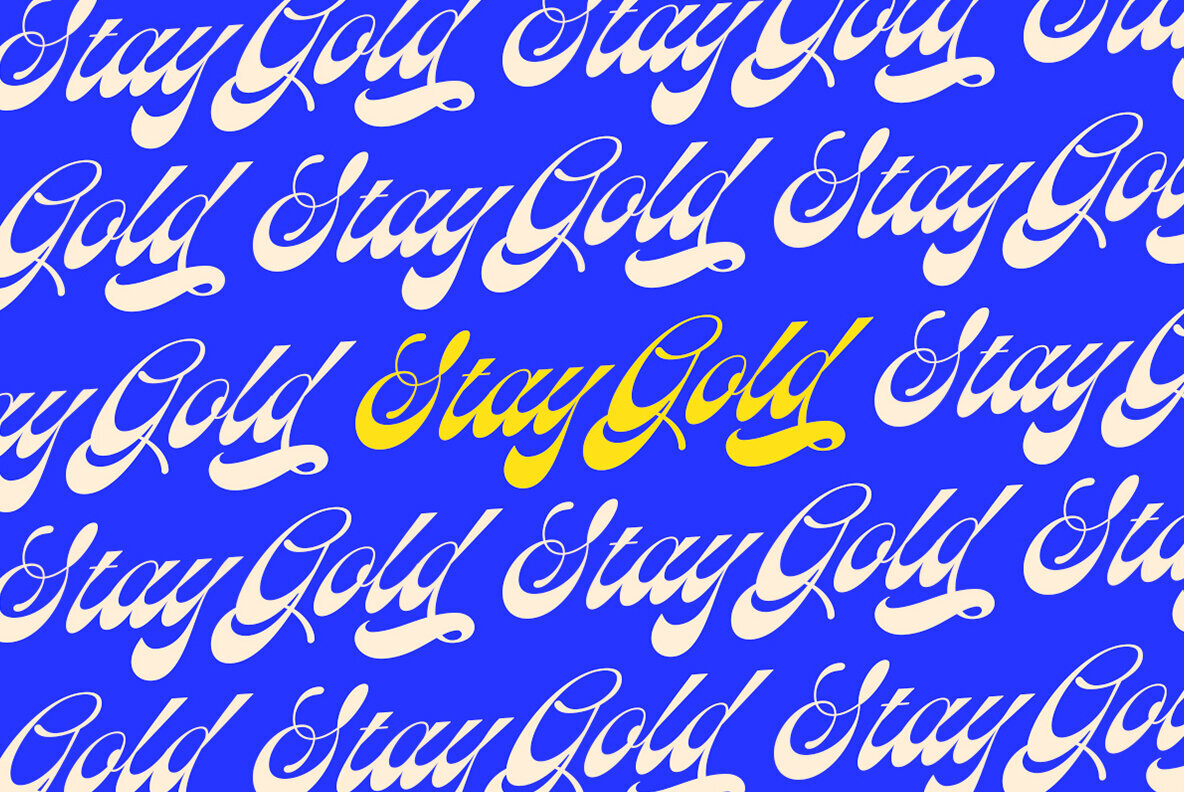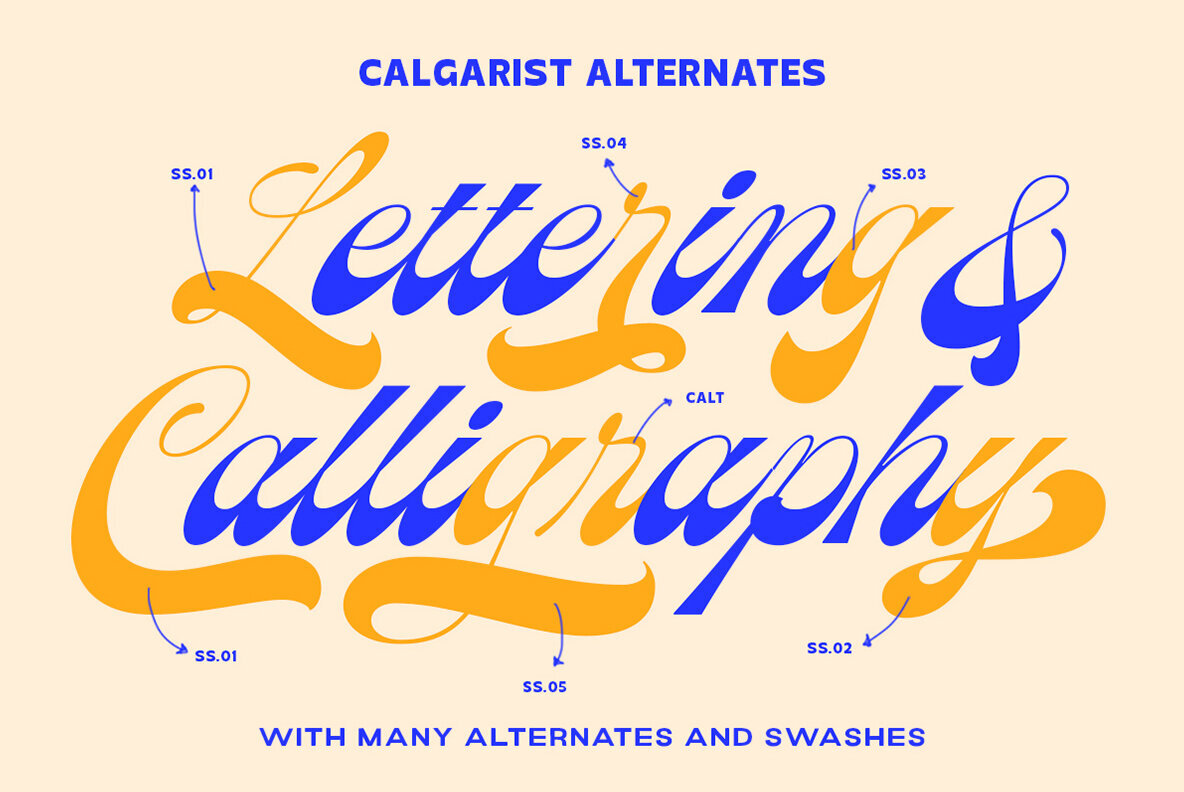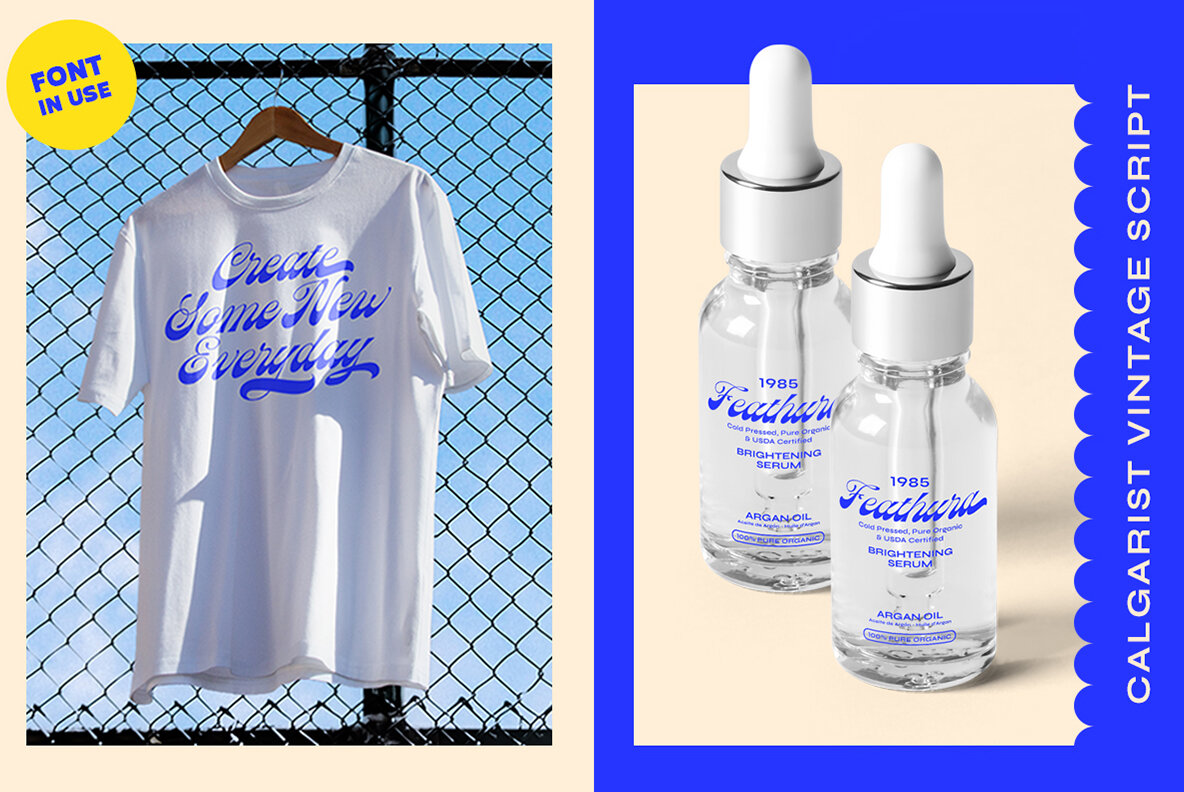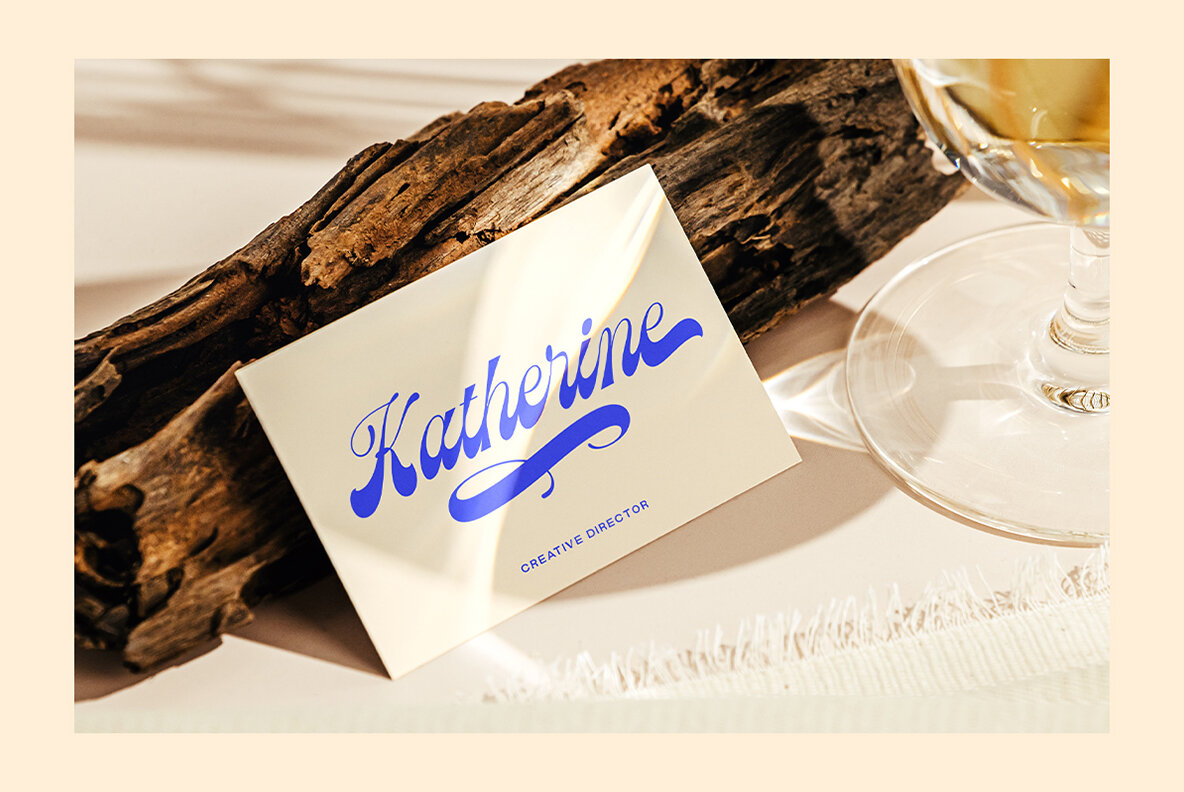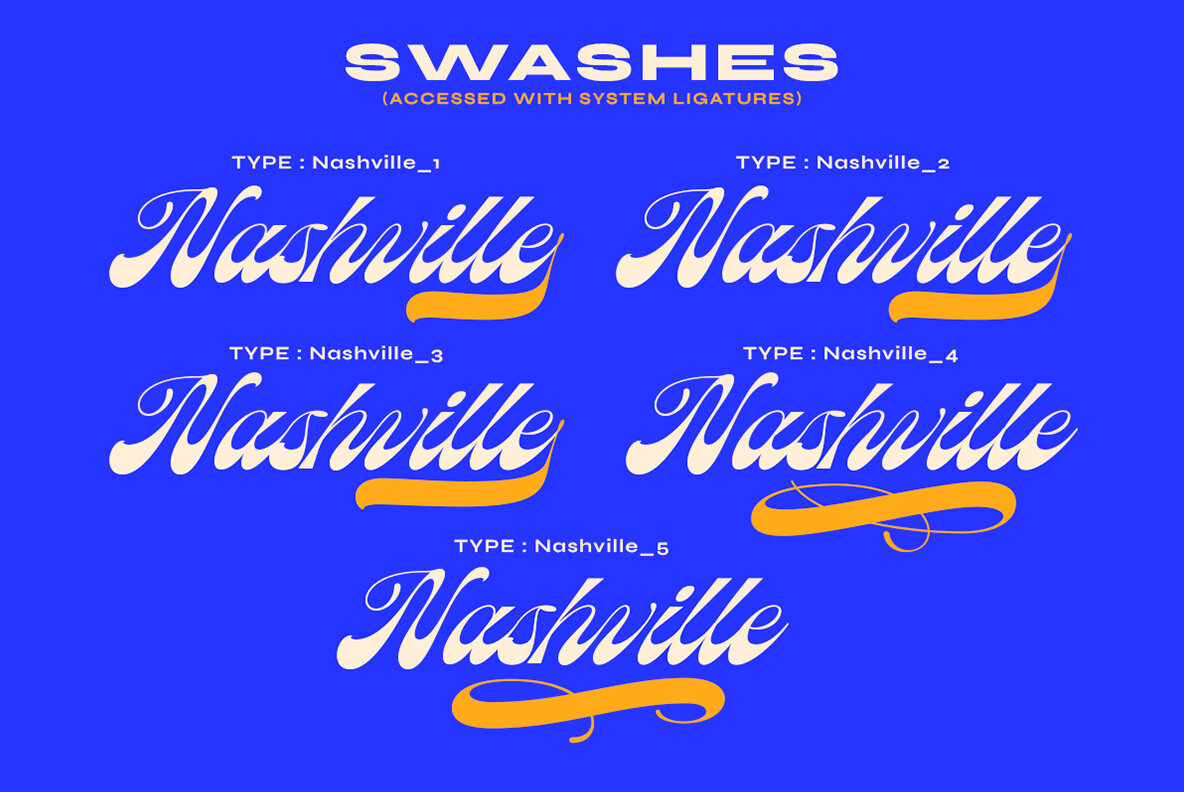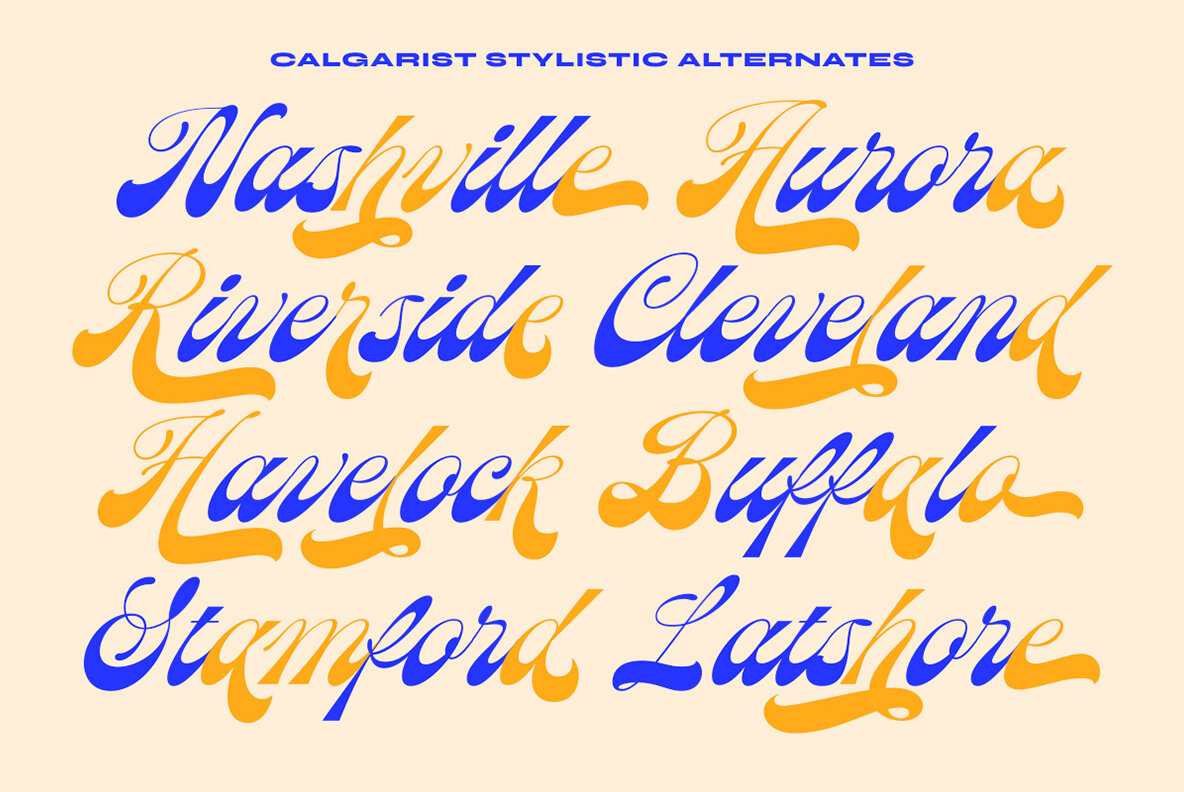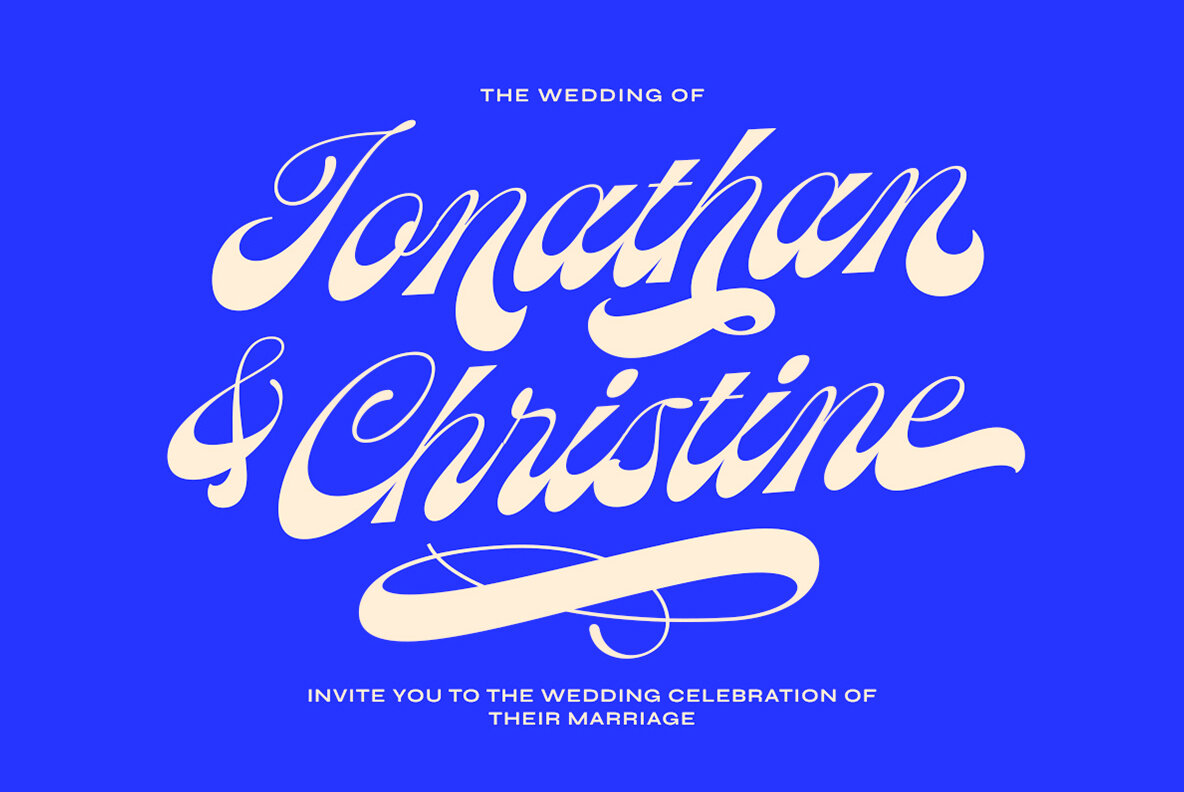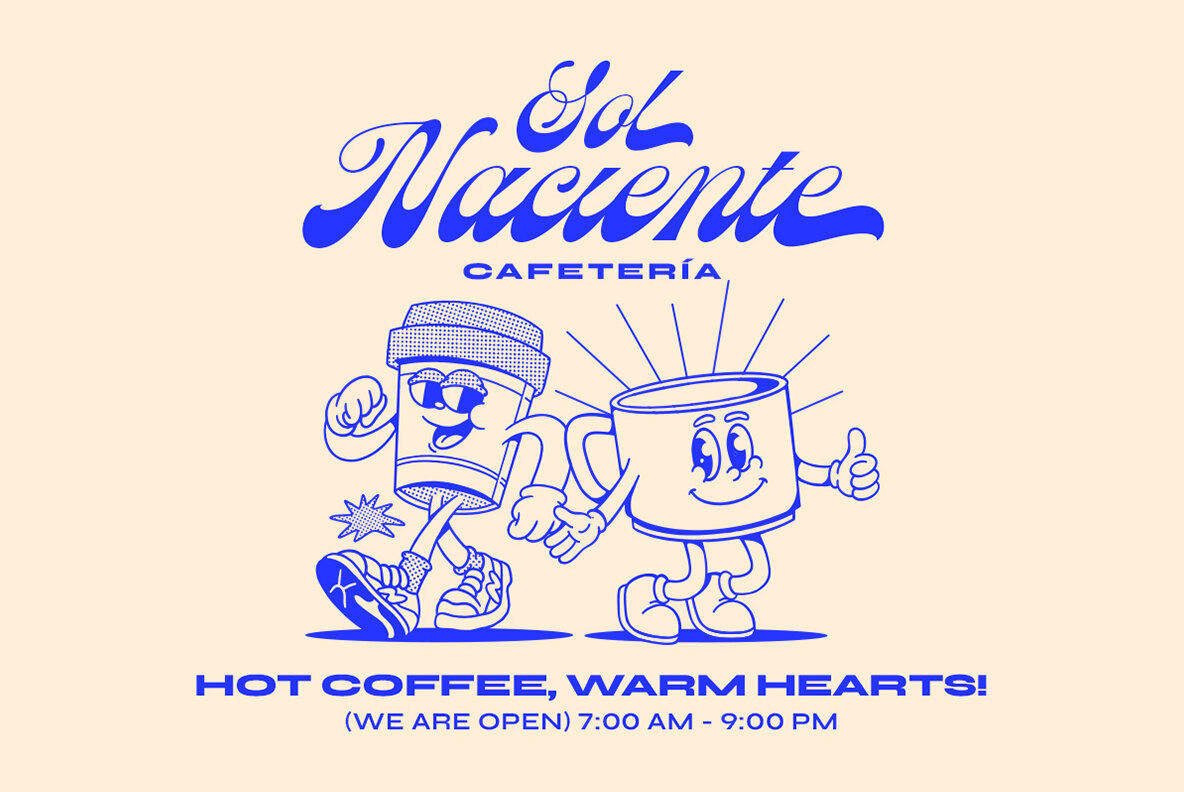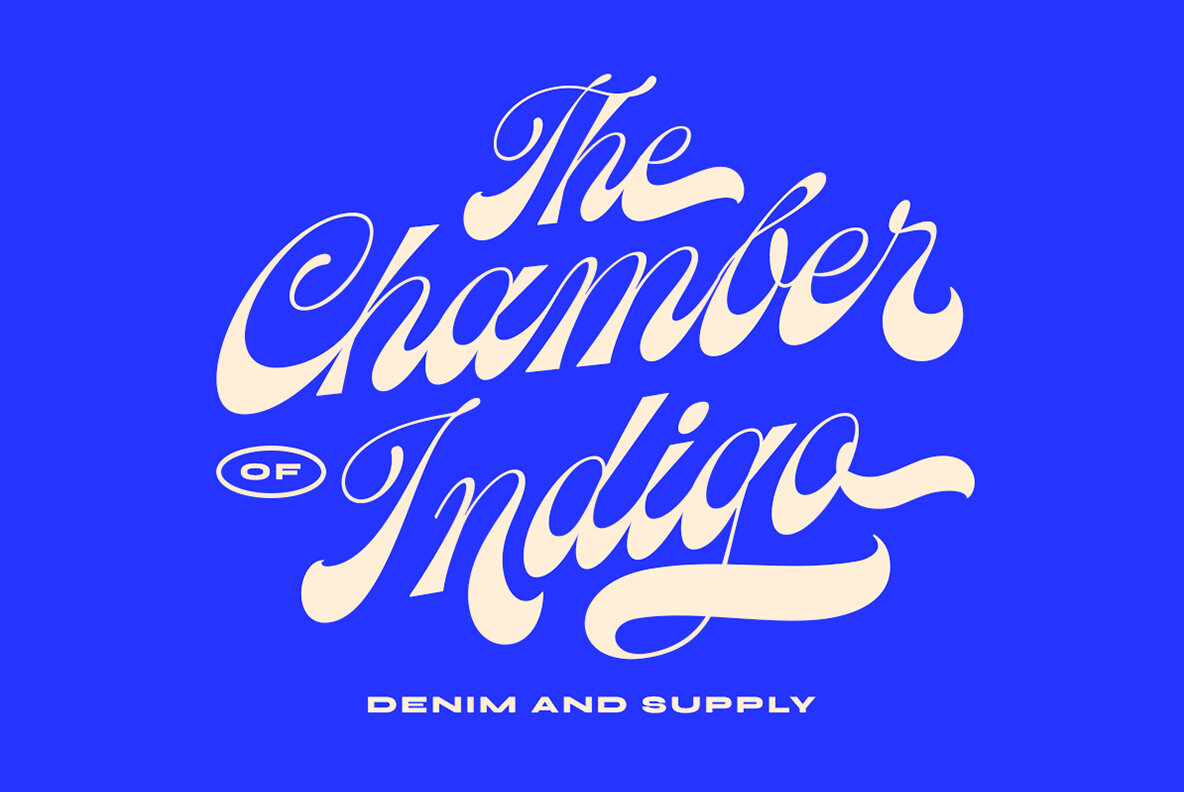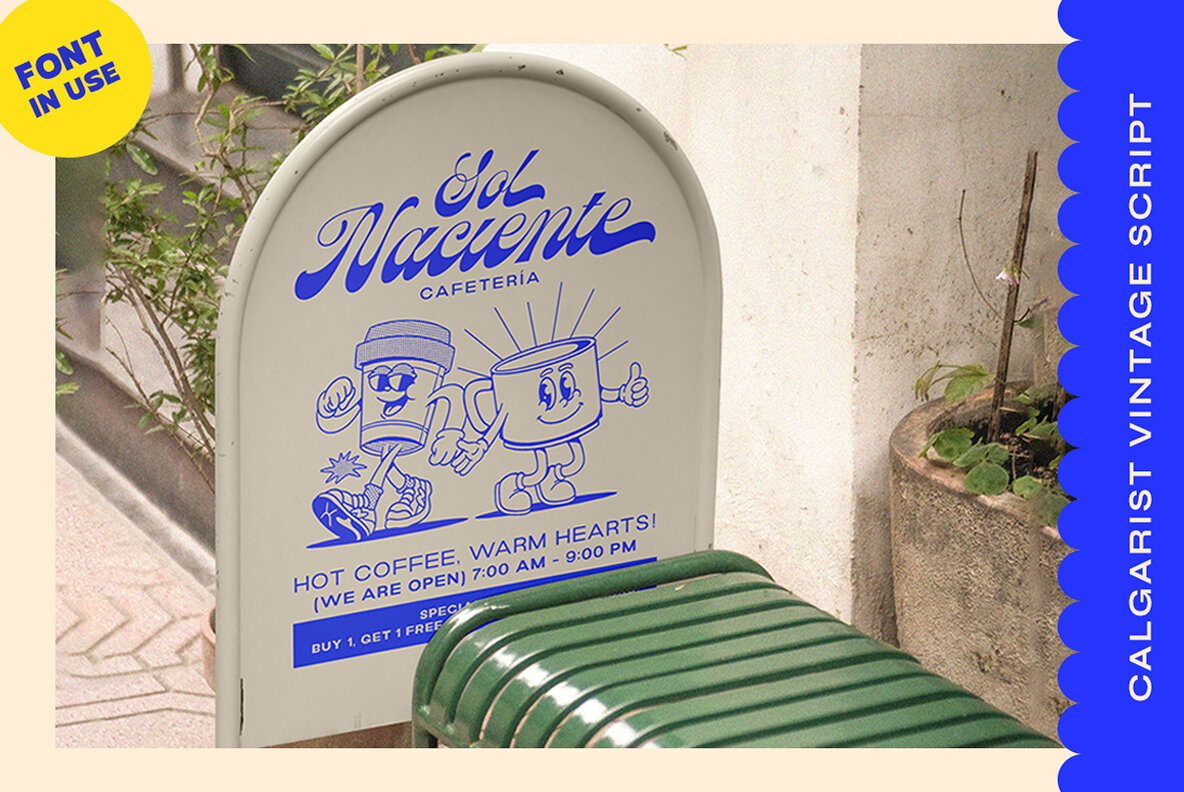
Calgarist Font
Calgarist Regular
Calgarist is a captivating vintage script typeface designed with intricate swashes and versatile alternates. This font is ideal for a wide range of applications, notably logos and formal projects like invitations and greeting cards. Its elegant curves and artistic flair make it a perfect choice for branding and packaging, adding a touch of classic sophistication to any design. Calgarist is not just aesthetically appealing but functionally versatile, seamlessly fitting into fashion, makeup, and lifestyle projects.
The typeface includes a complete set of uppercase and lowercase letters, as well as numbers and punctuation marks, ensuring full communication potential across various languages with its multilingual support. The availability of alternates and swashes offers creative flexibility, enabling designers to craft distinctive and personalized designs. Whether used in magazines, books, or advertising, Calgarist brings a vintage charm and refined elegance that enhance visual appeal and engage audiences.